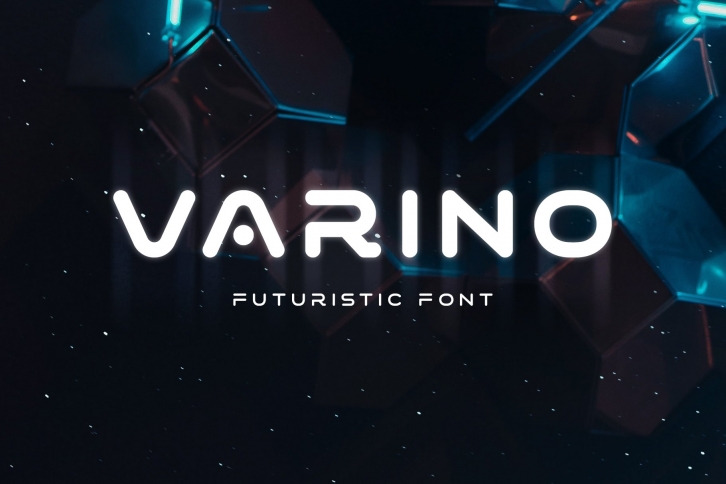
Varino is a futuristic font. A font family inspired by the visual of technology that we can find from logo, Sci-Fi movies, games, and the present gadgets. Designed with minimalist style and unique letterforms. A perfect choice to use on logos, labels, posters, packaging, books, movies, presentations, games, and much more! Varino complete with some elegant ligatures that give your design looks more futuristic and dynamic.